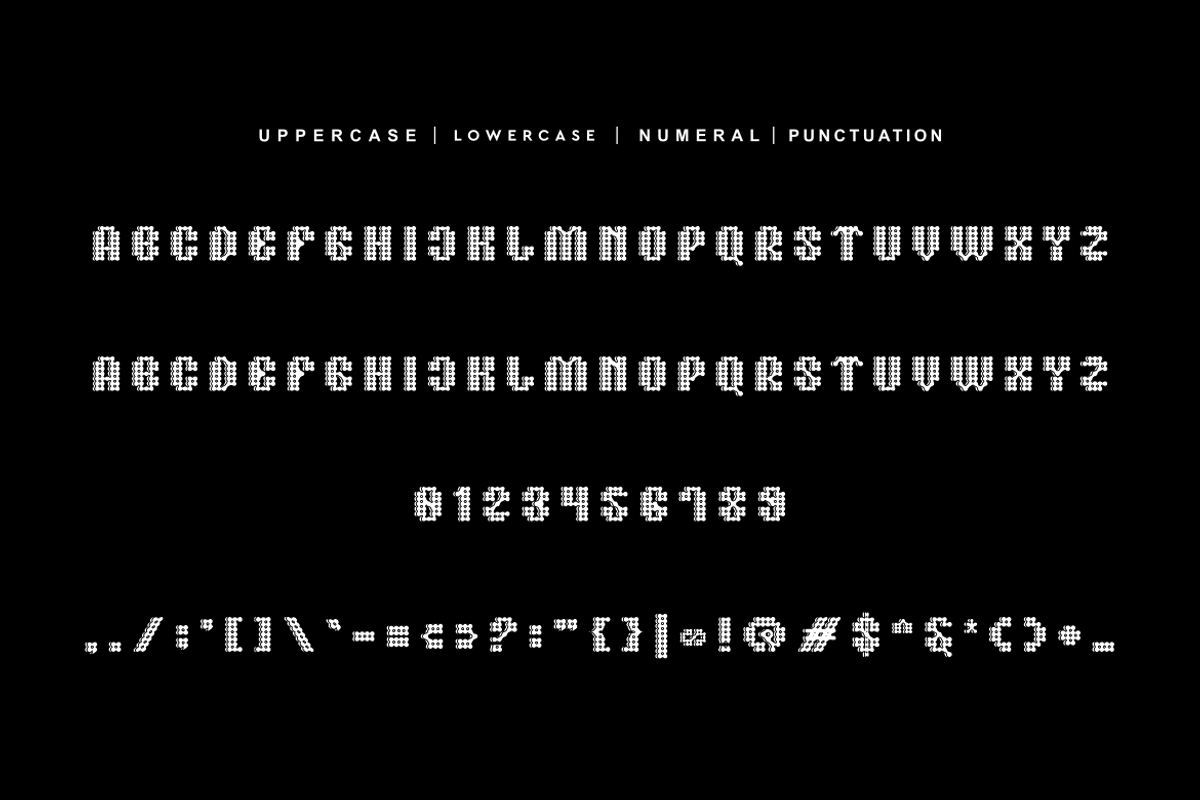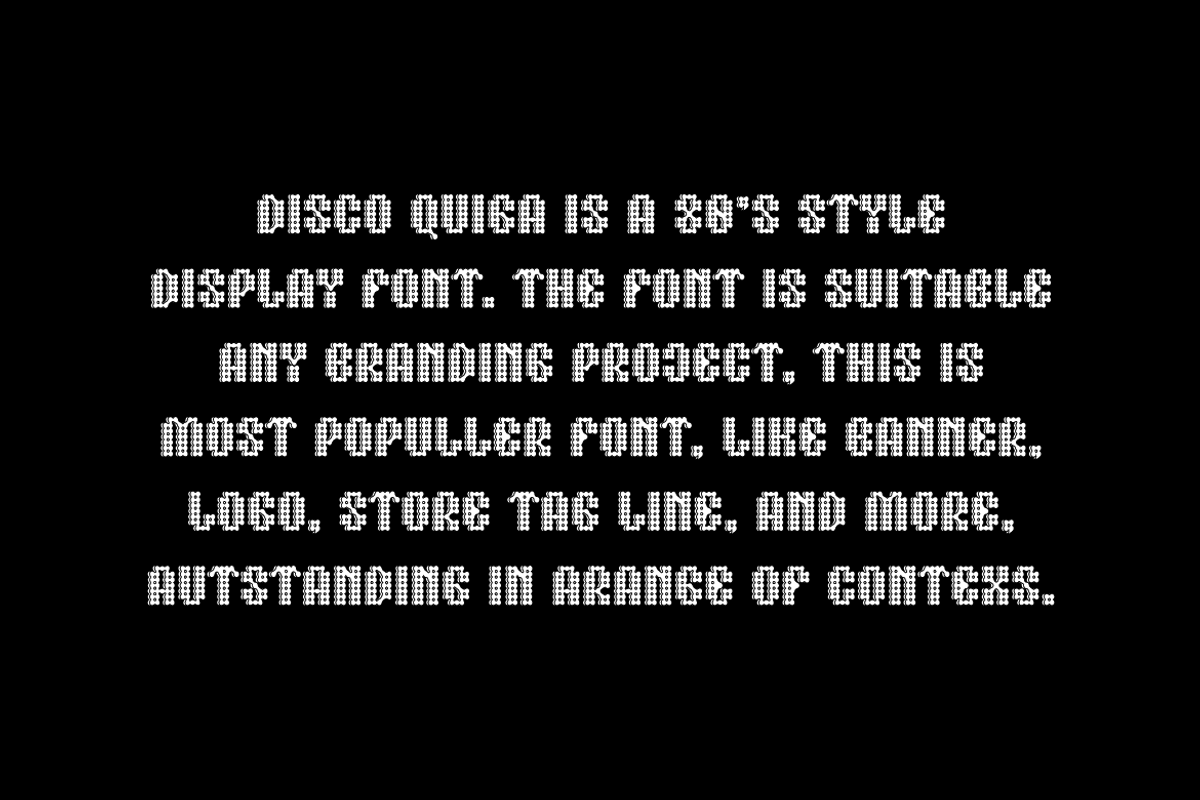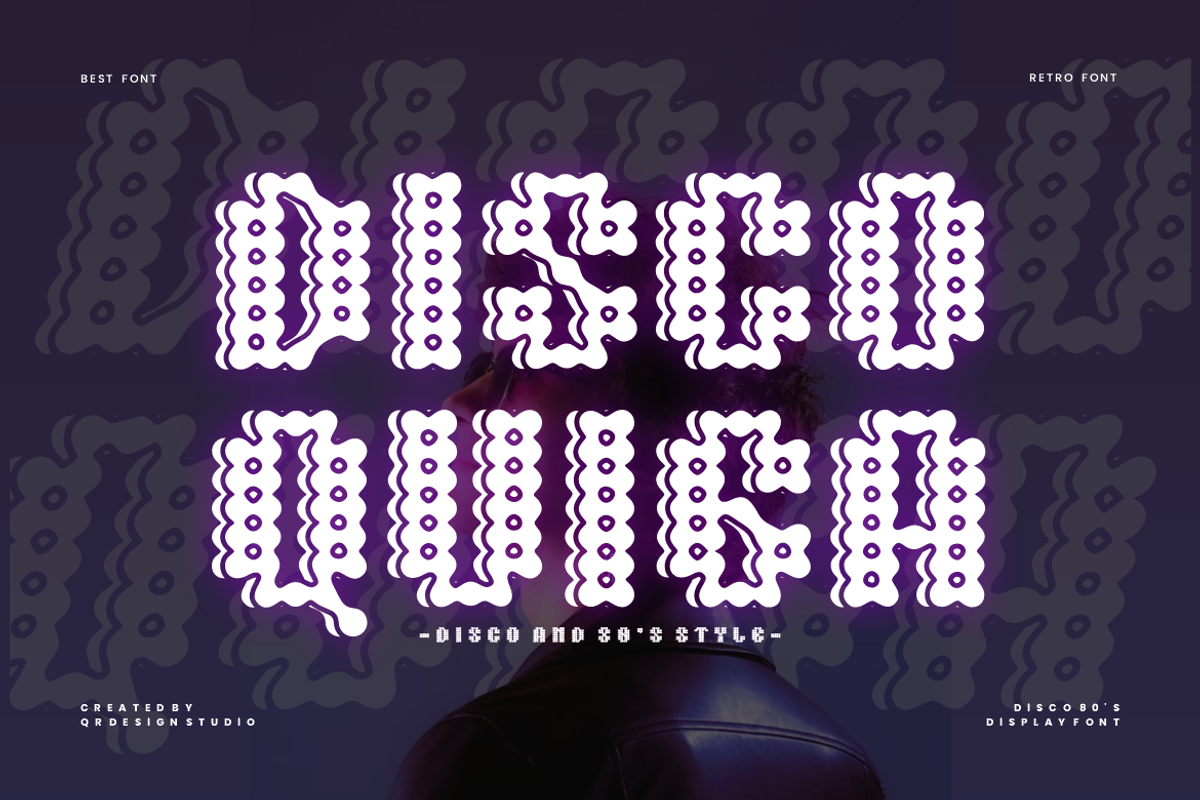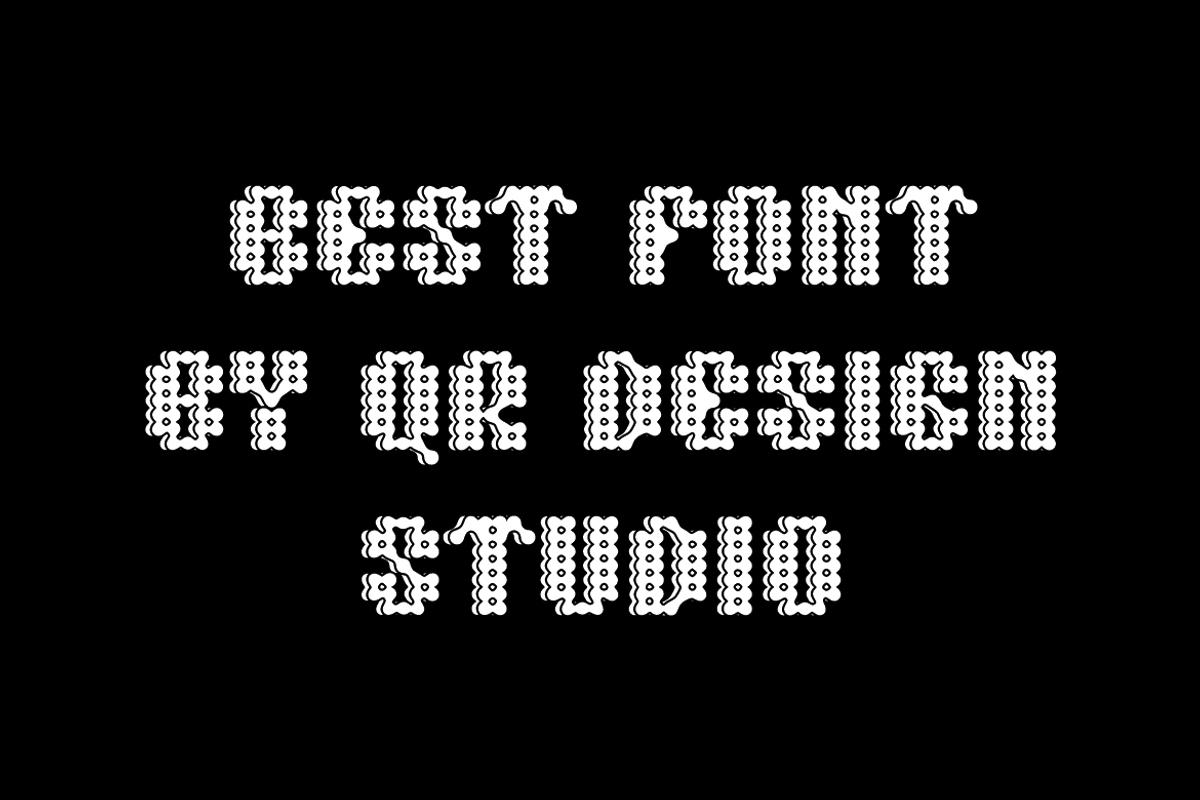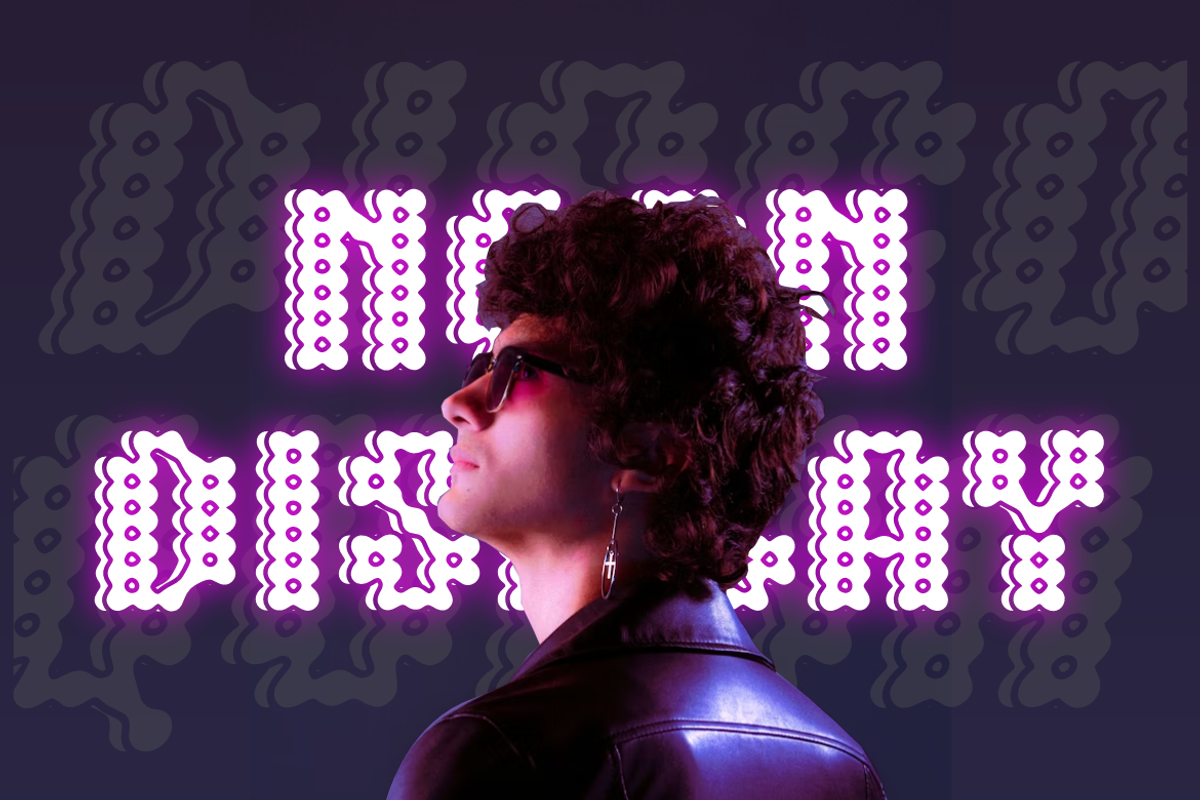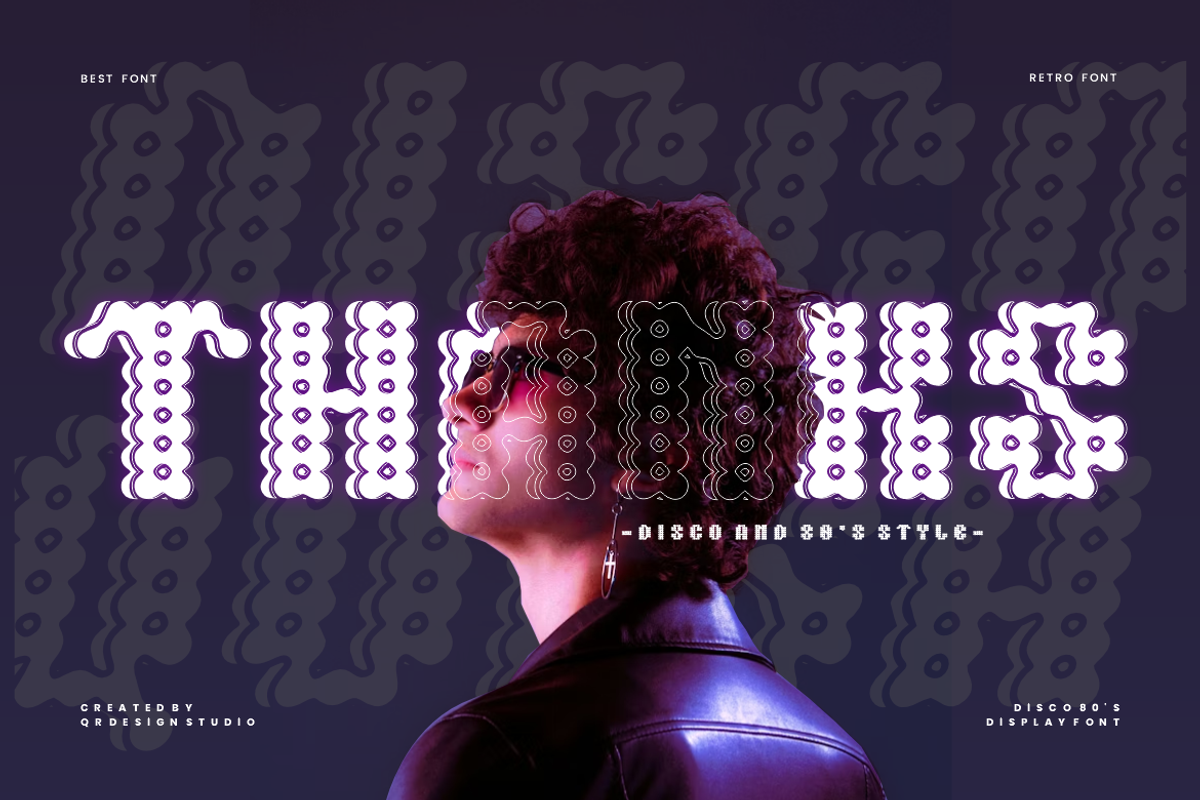
Disco Quiga Font
Disco Quiga Font is a best and authentic display font. The font is suitable for any branding project like poster, logo, and many more. Outstanding in a wide range of contexts.